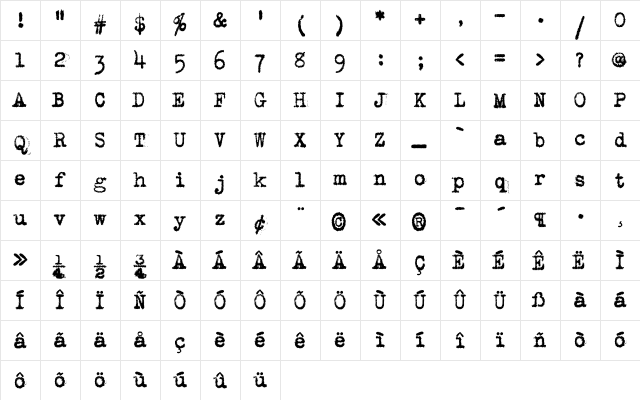
VTypewriter SmithUpright
Style: SmithUpright
VTypewriter Family
Complete VTypewriter SmithUpright glyph index. Displaying only characters natively supported by VTypewriter SmithUpright font.
Design Context for VTypewriter
VTypewriter uses fixed-width spacing throughout, giving it the structured, systematic character associated with coding environments and technical documentation.
Pro Tip: Use VTypewriter with slightly increased line-height for extended reading - fixed-width spacing can feel dense in longer passages without extra breathing room.